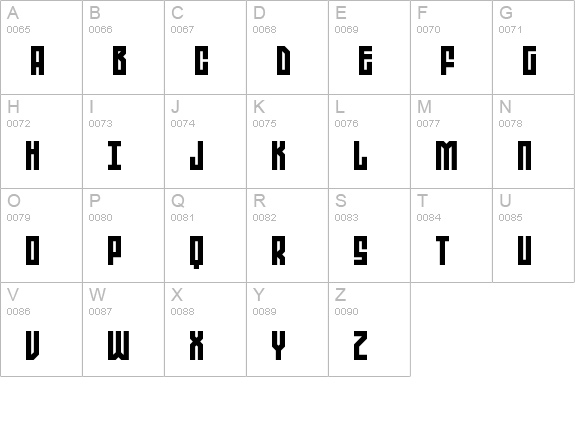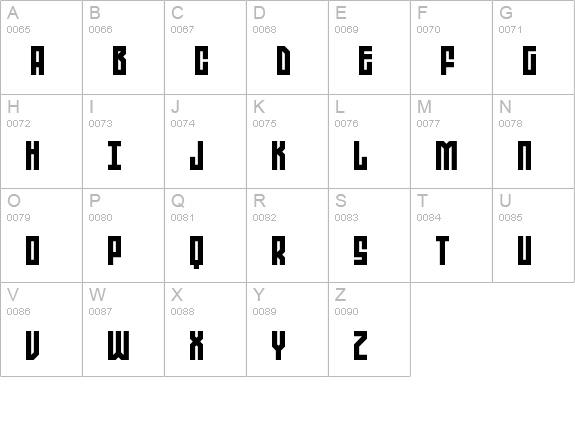
Zephyrean BRK Font Details
Zephyrean BRK font is a modern and stylish typeface that exudes elegance and sophistication. With its unique design and sleek lines, this font is perfect for adding a touch of class to any project. Whether you're designing a logo, creating a poster, or crafting a website, Zephyrean BRK font will make your text stand out. What makes Zephyrean BRK font even more appealing is that it is completely free to download. Yes, you read that right - you can get your hands on this gorgeous font at no cost at all! Simply head over to FontsMarket.com and start using Zephyrean BRK font in your projects today. Don't miss out on this fantastic opportunity to elevate your designs with this stunning typeface.